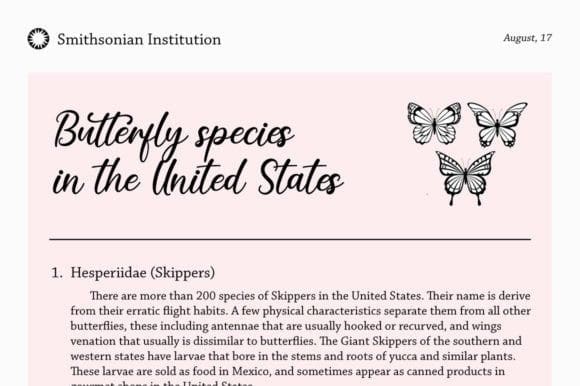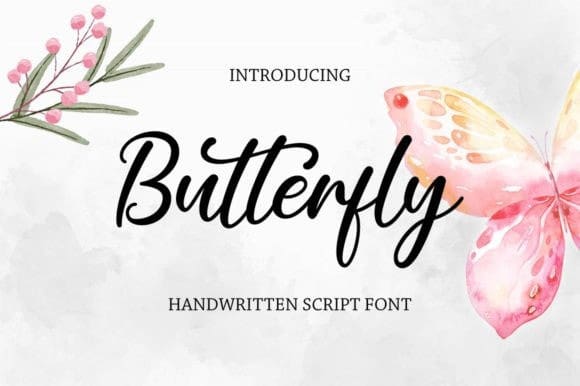
Butterfly NC Font
Butterfly NC Font, is a magical handwritten font. It looks ravishing on invitations, thank you cards, quotes, greeting cards, logos, business cards, and every other design which needs a customized touch.